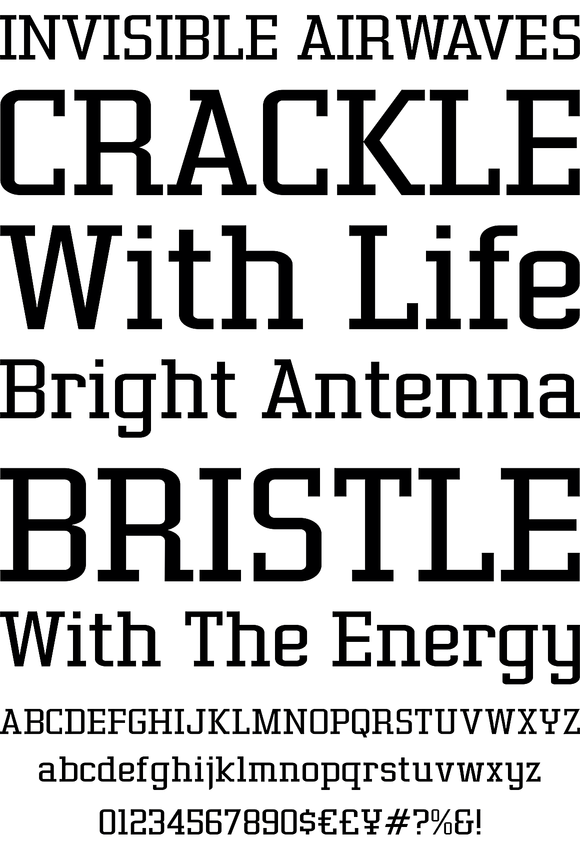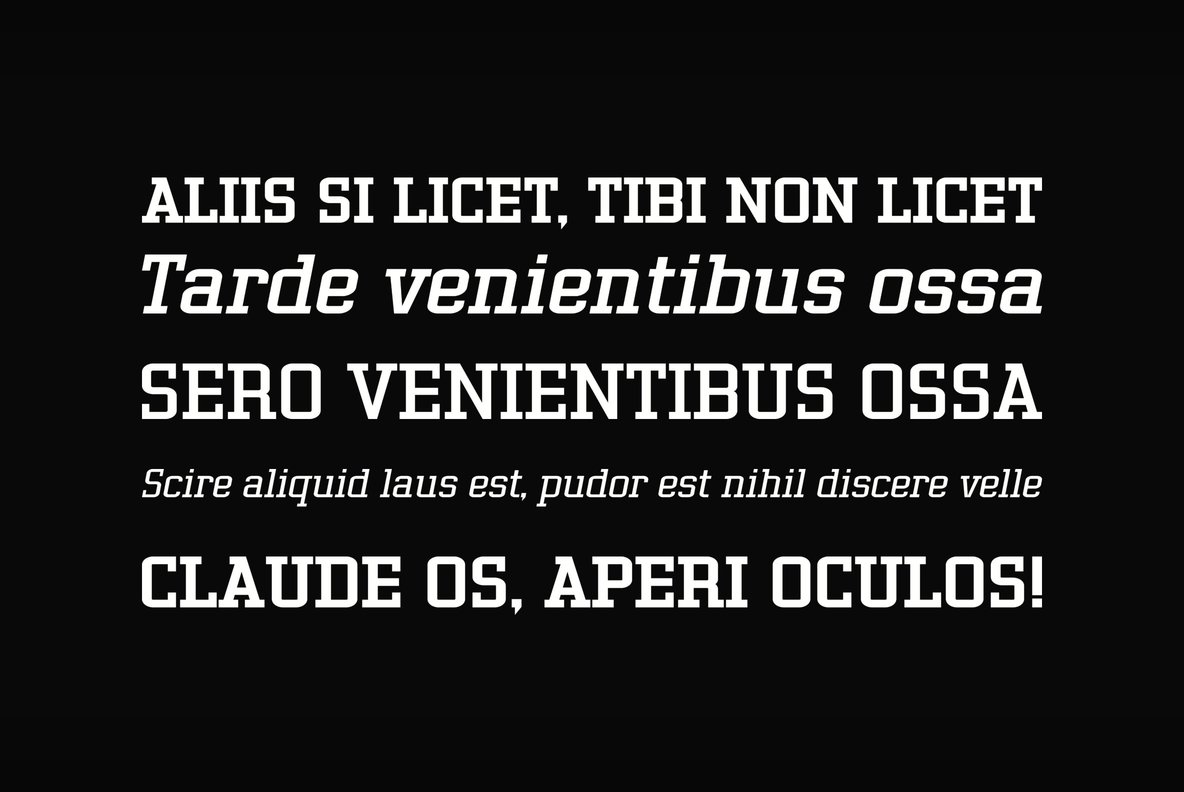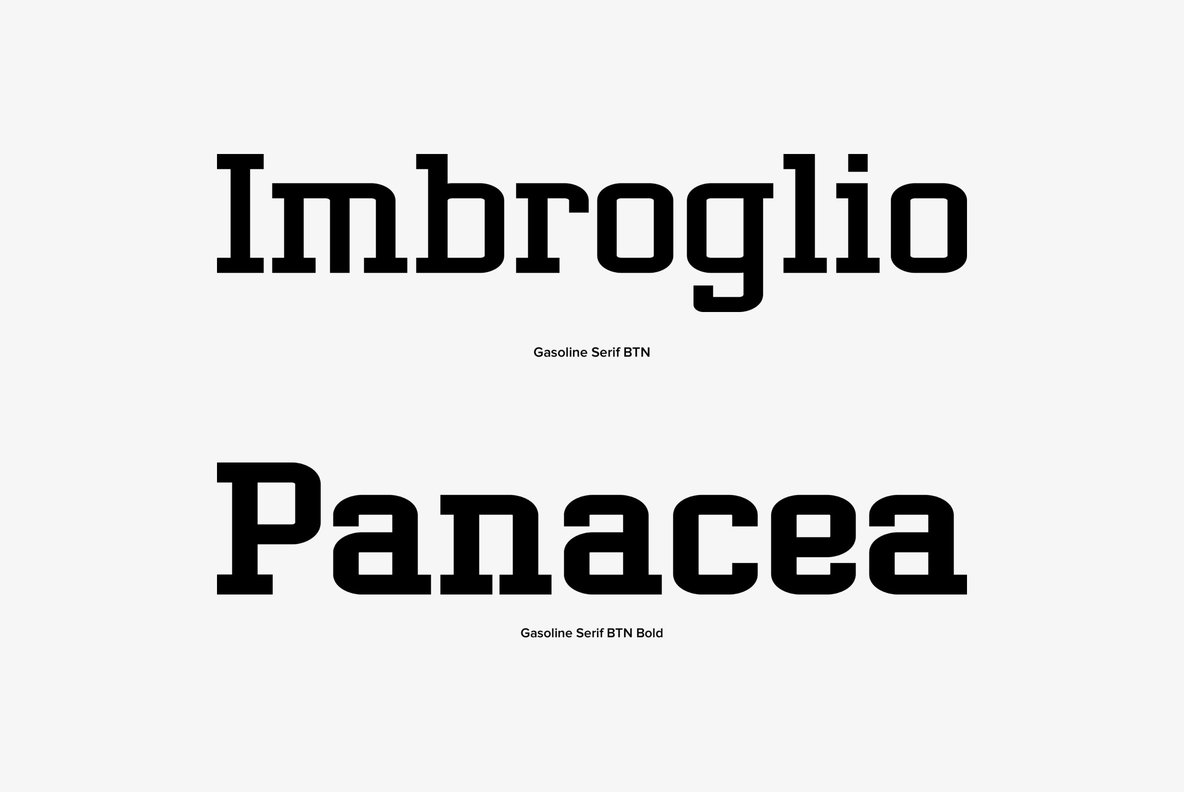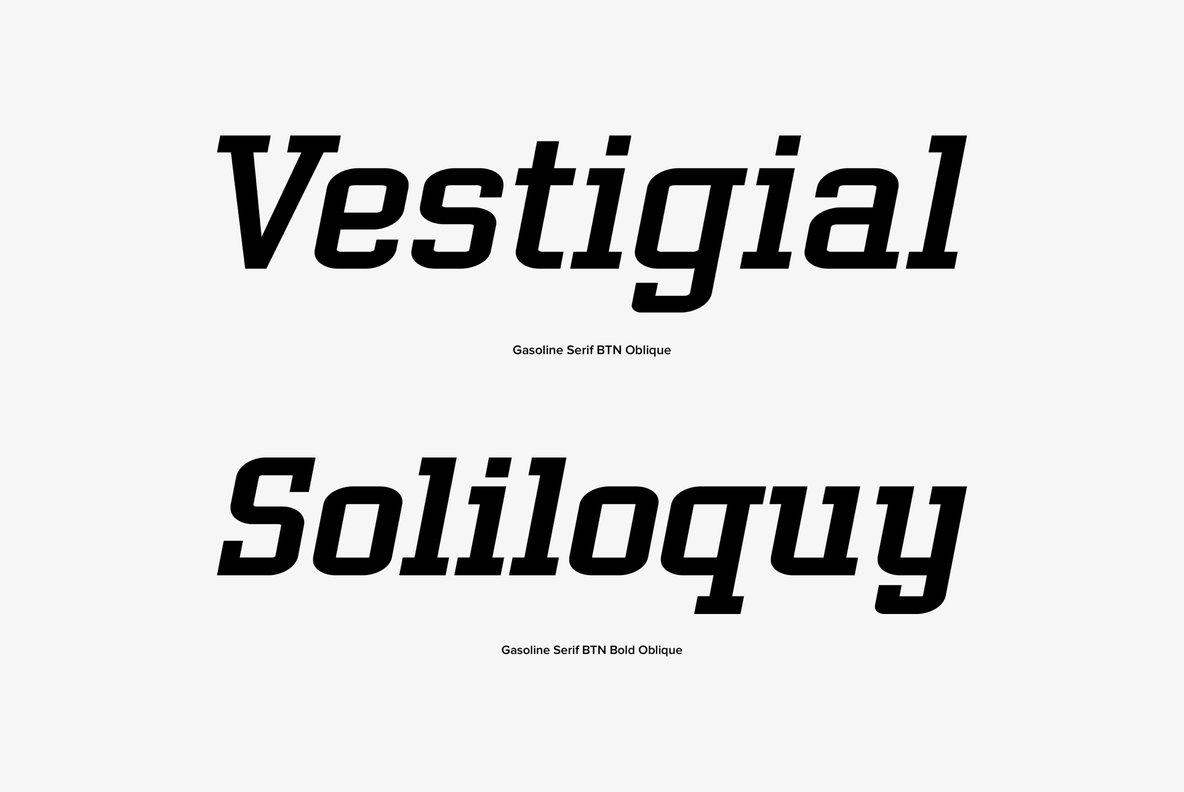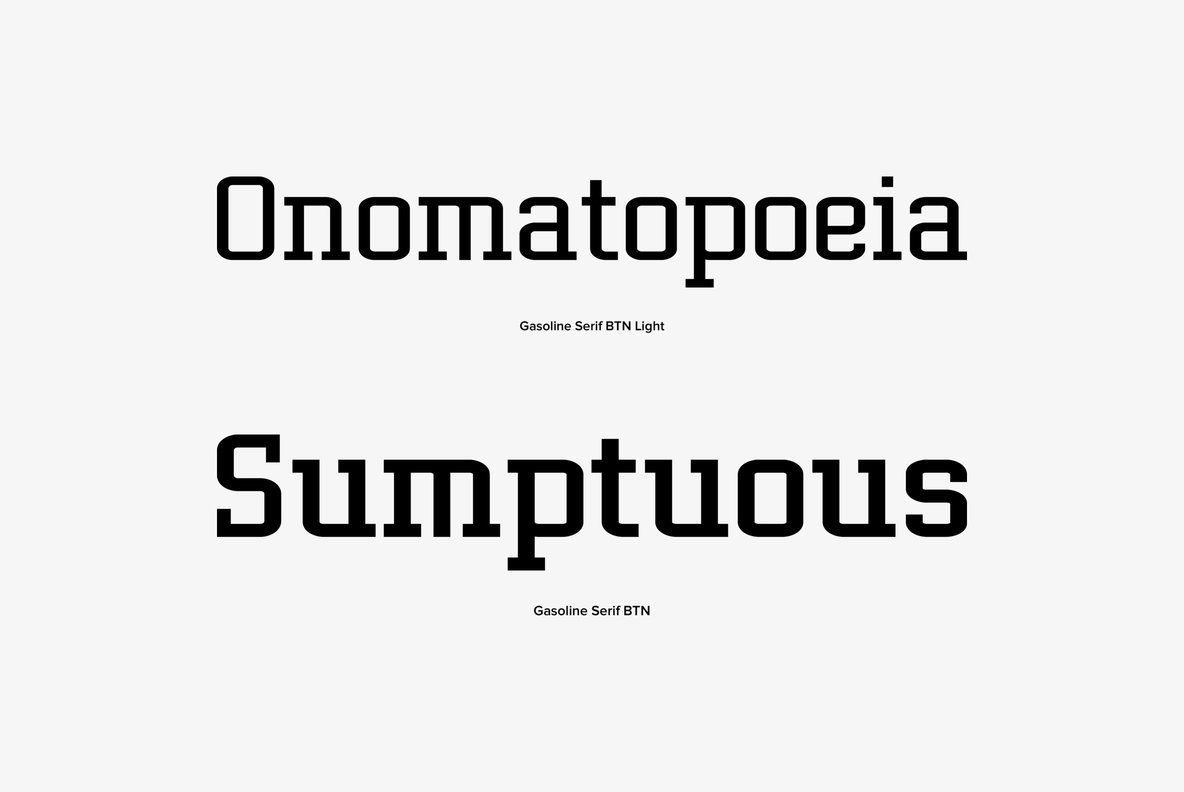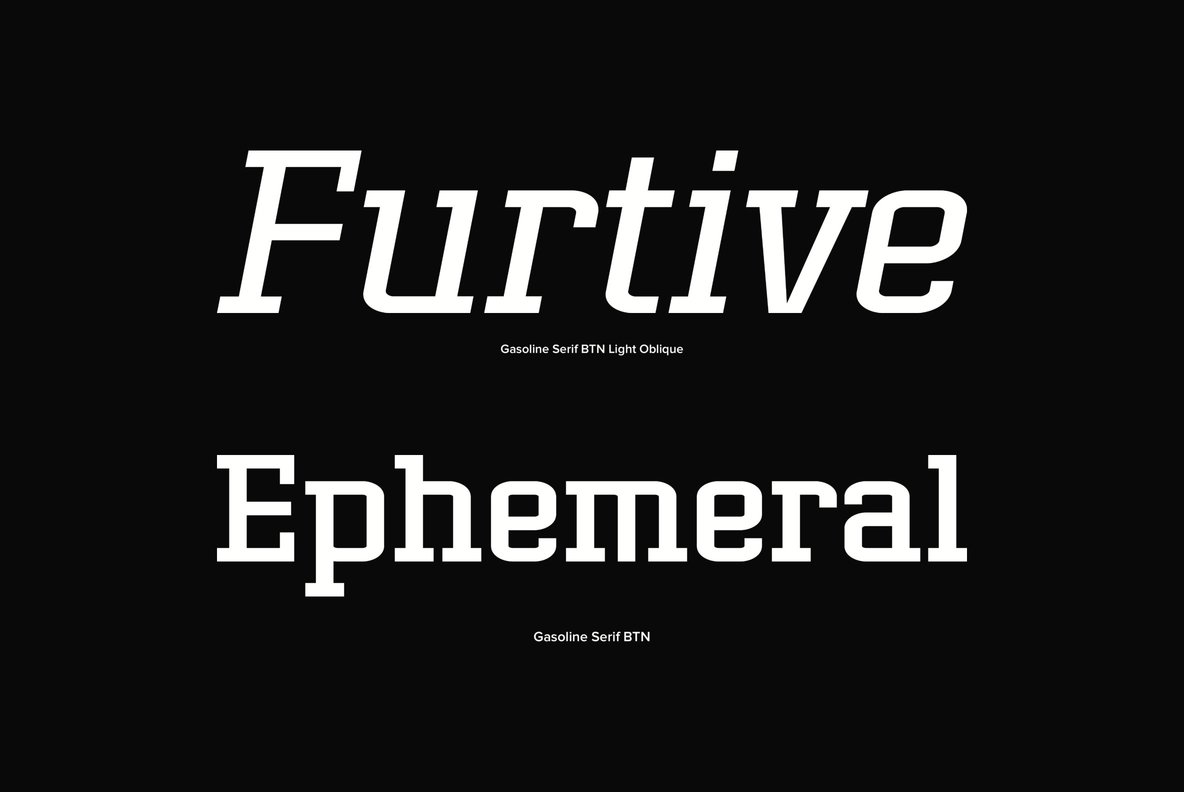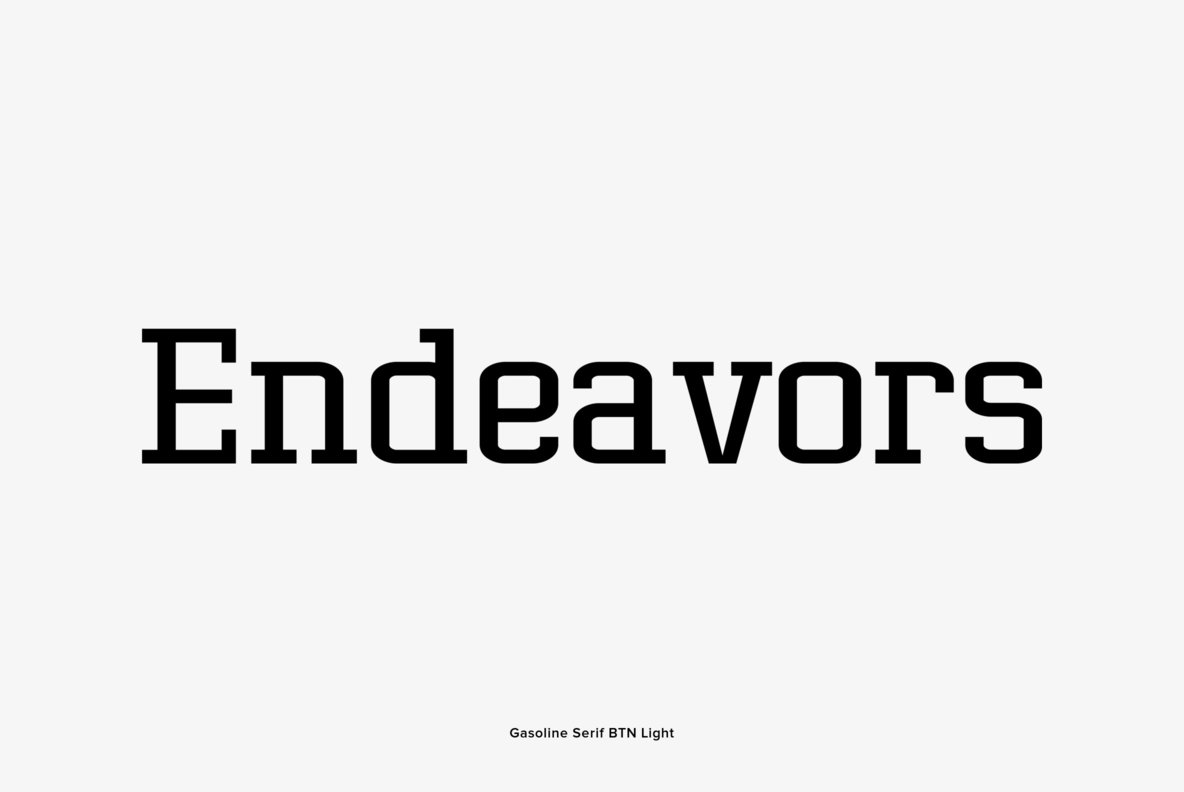
Gasoline Serif
Gasoline Serif is a clean geometric serif font family that takes a clean simple straight-forward approach to legibility. Inspired by pure geometric letterforms, the Gasoline family creates its own honesty with a hint of personality.